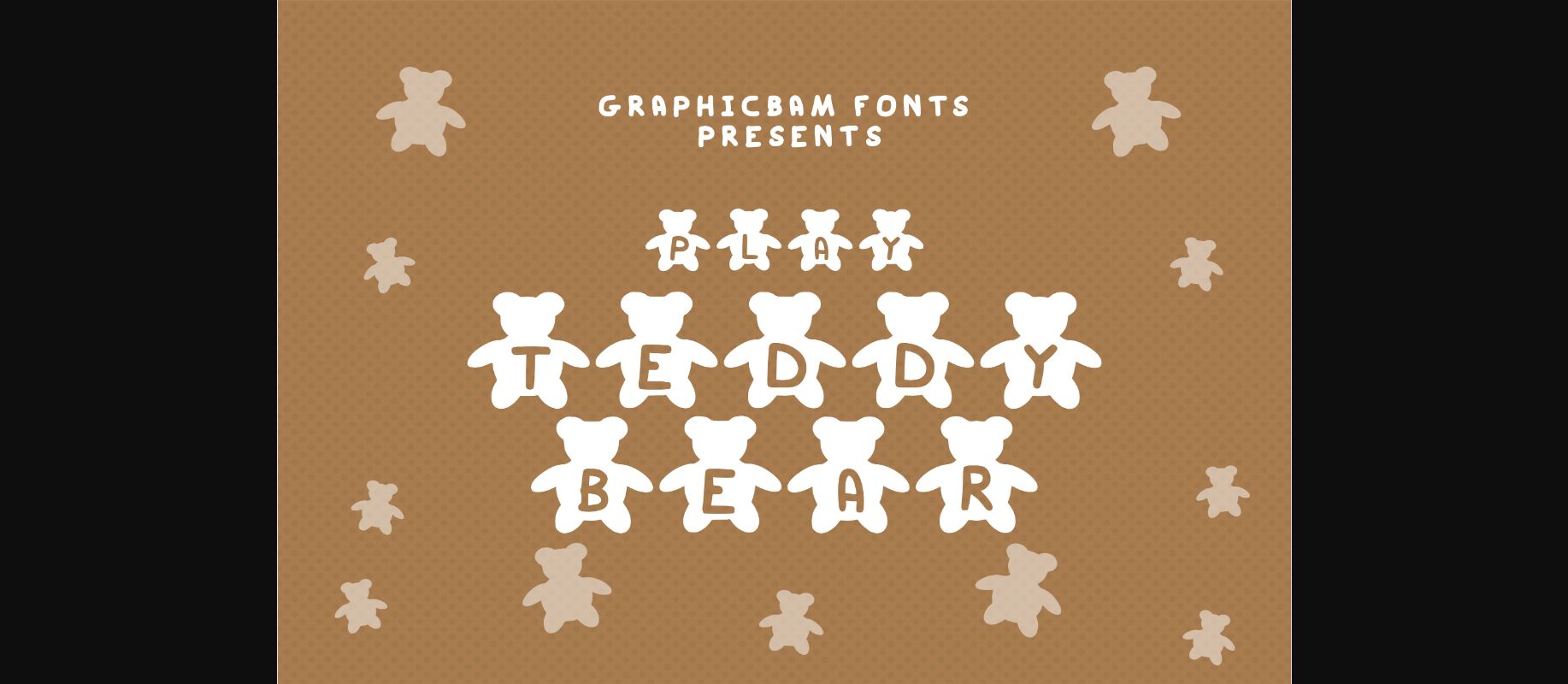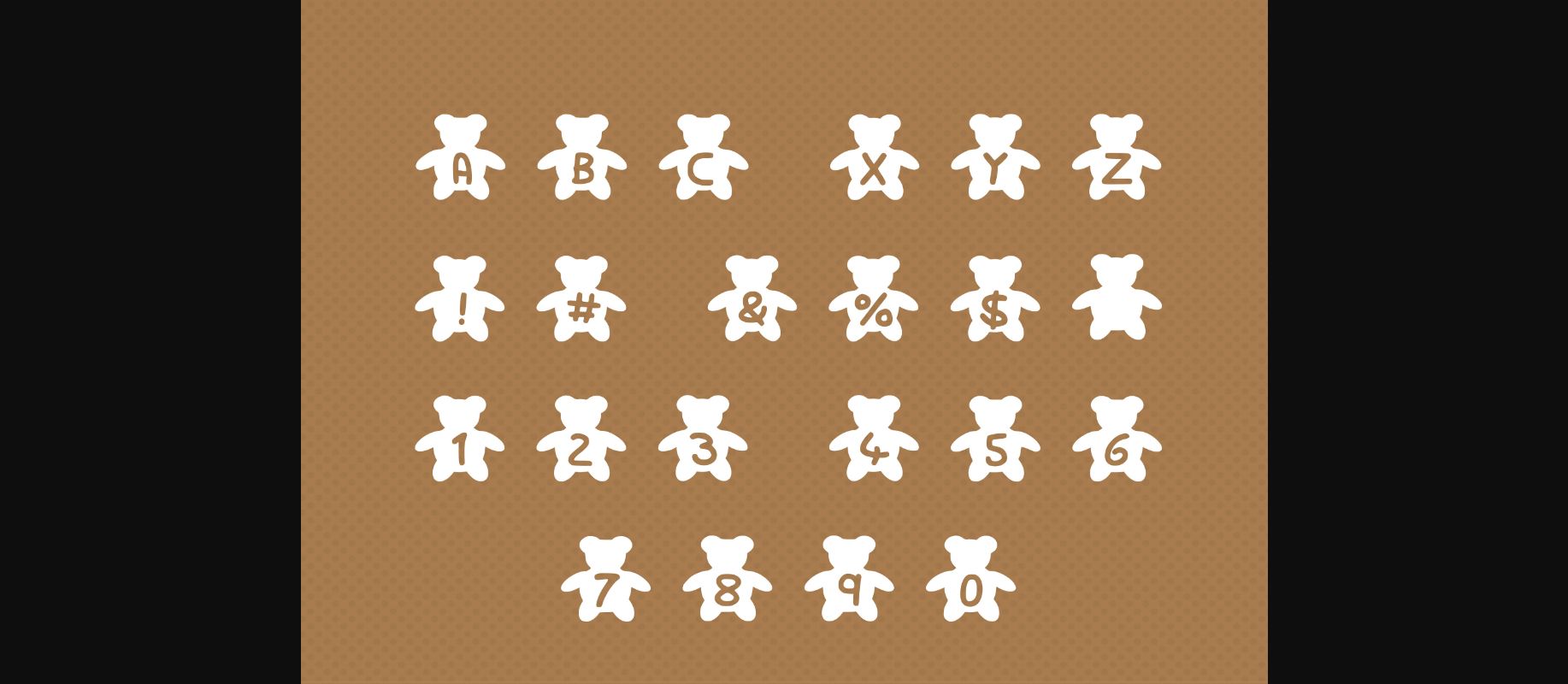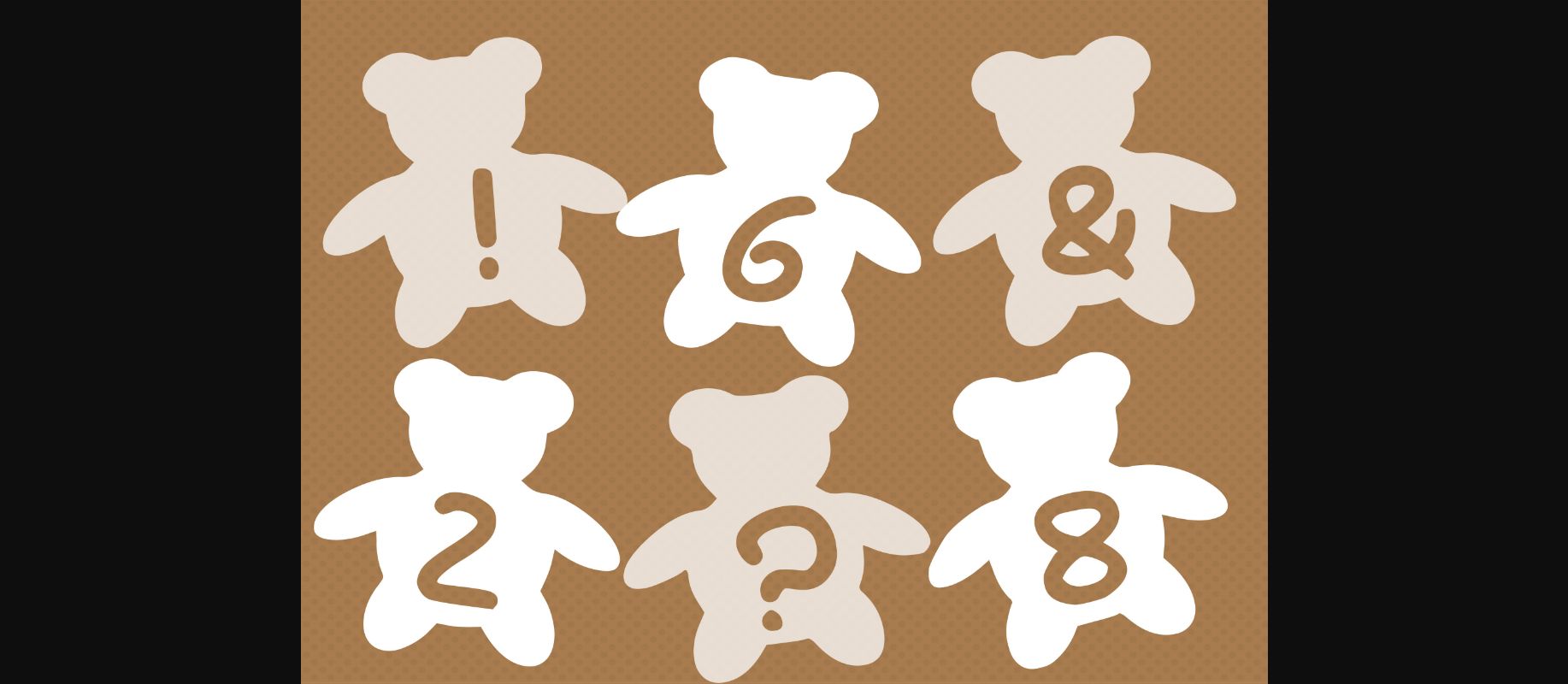
About Play Teddy Bear Font
Play Teddy Bear is an adorable decorative font. It is perfect for children-related creative projects that need inviting typography.